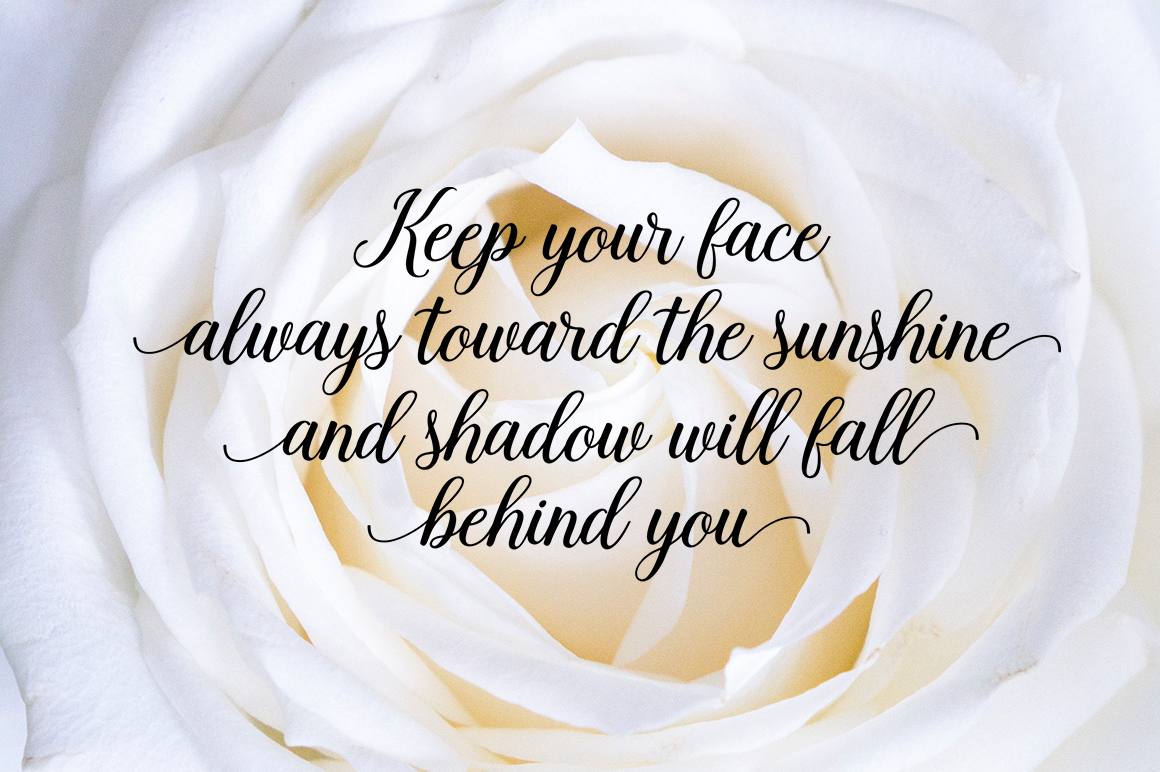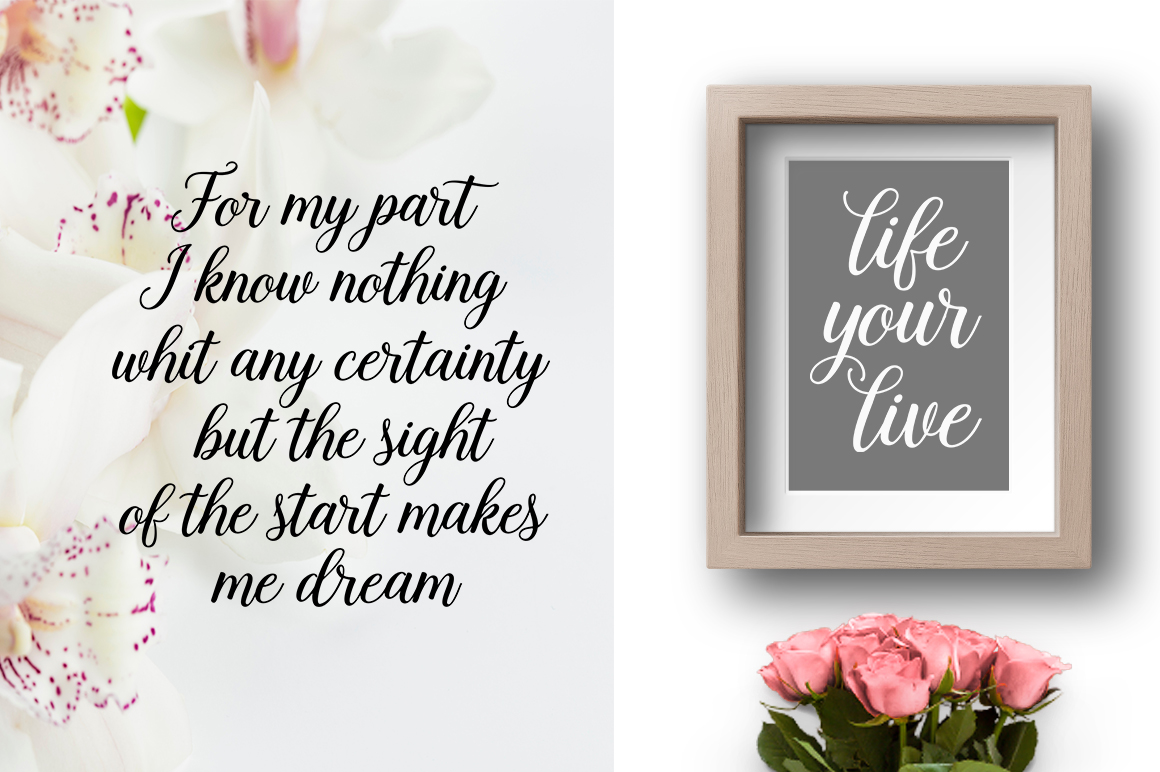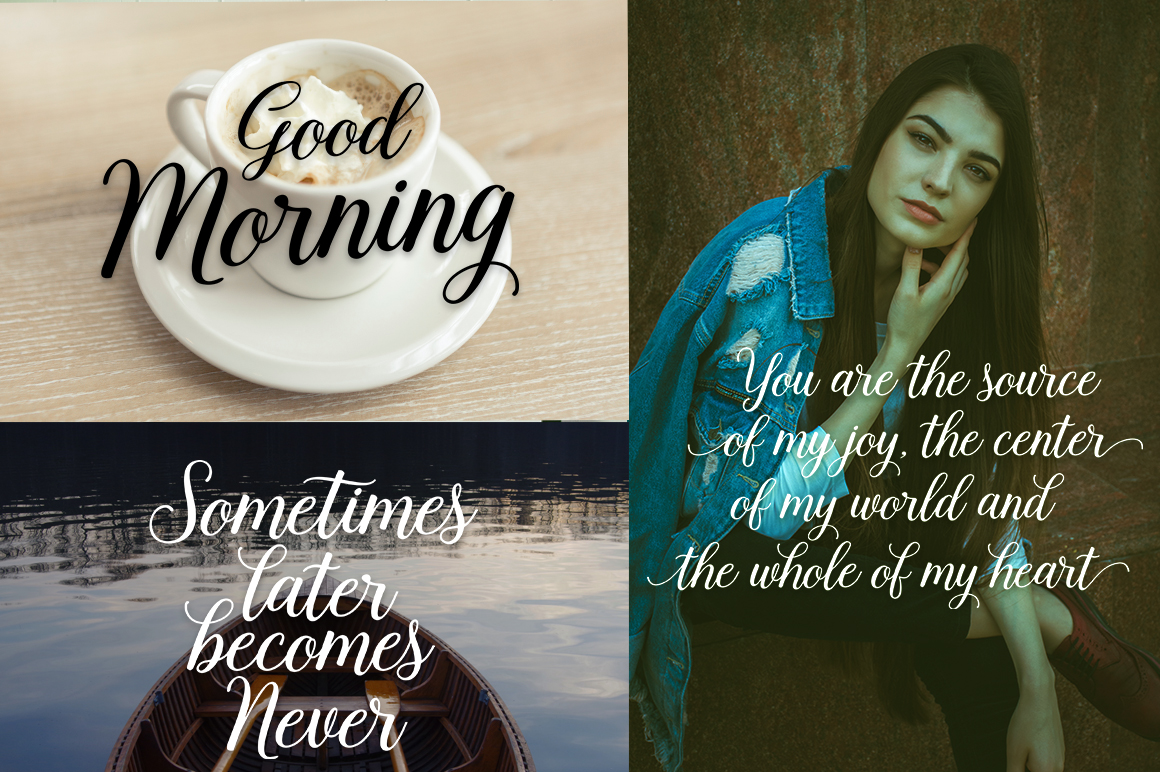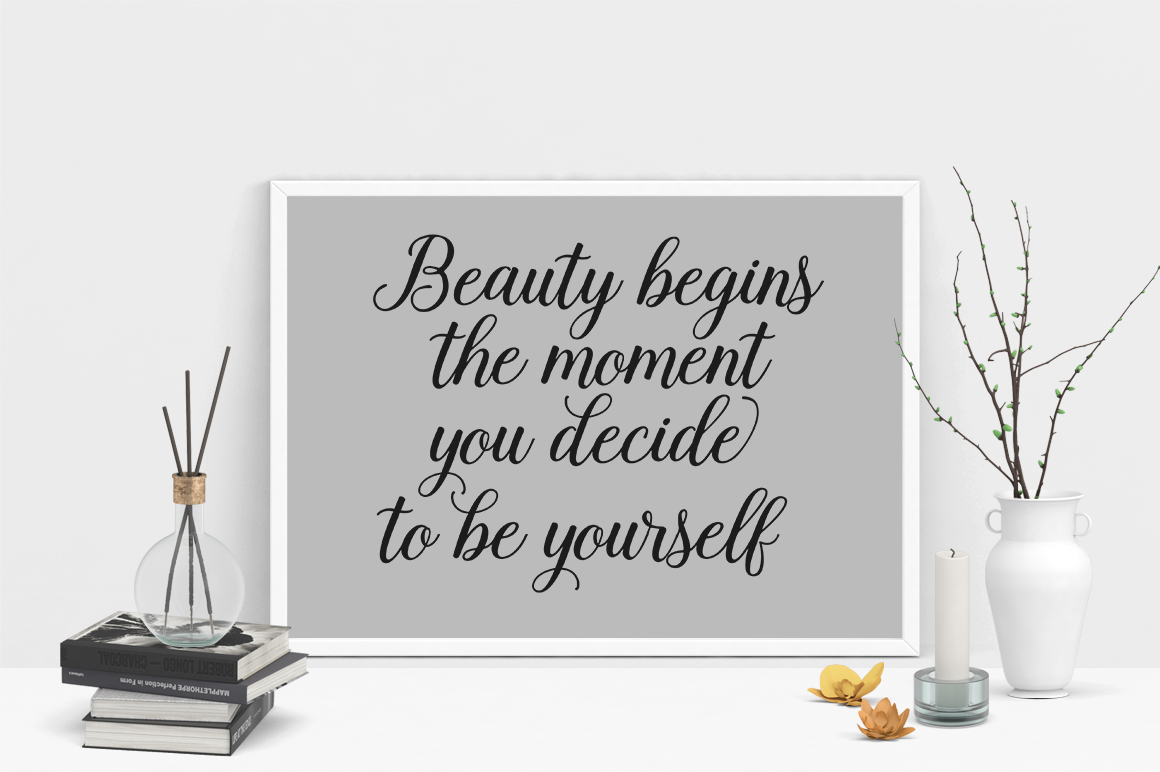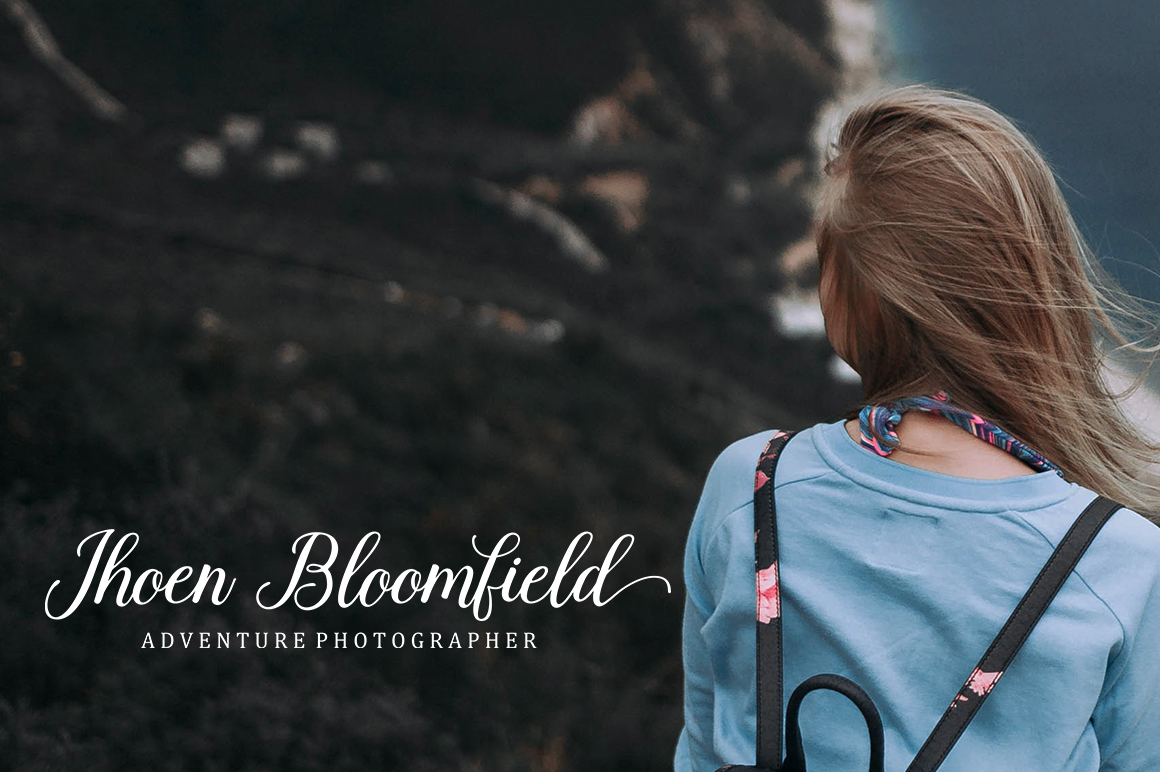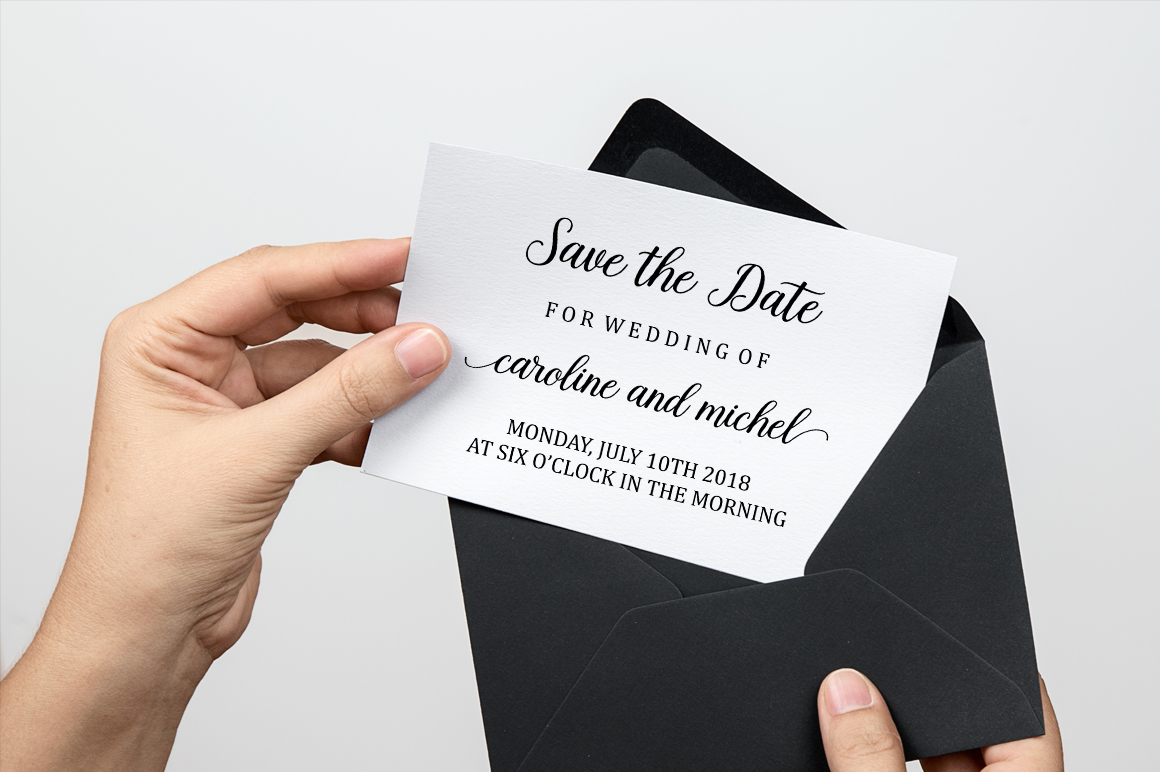
The Art of Beautiful Typography: Introducing Bethanya Font
There’s something magical about the moment when a font comes together and elevates a design from good to great. It’s the spark that sets creativity ablaze, and for designers, it’s a thrill like no other. Whether you’re crafting a logo, designing a wedding invitation, or building a brand, the right font can make all the difference.
Bethanya Font is a modern calligraphic font that’s sure to capture your imagination. With its fluid lines and stunning swashes, it’s perfect for both corporate branding and personal projects. Whether you’re a seasoned pro or just starting out, Bethanya Font offers a level of sophistication and elegance that’s hard to resist.
- Unique Characteristics: Bethanya Font features a unique blend of modern and traditional design elements, with a focus on readability and versatility
Bethanya Font Review
As a designer, I was excited to dive into the Bethanya Font, a beautiful script font that promises to add a touch of elegance to any project. ✨ One of the things I love about Bethanya is its versatility – it works well for both digital and print projects, making it a great addition to any designer’s toolkit. The font is also incredibly easy to use, with a seamless installation process and intuitive controls. ✨ Another standout feature is the font’s high level of customization options, allowing designers to tailor the look and feel to suit their specific needs.
- ✨ Versatility: suitable for both digital and print projects
- ✨ Customization options: high level of control over the font’s appearance
- ⚠️ Limited character set: some users may find the font’s character set lacking for certain languages or special characters
- ⚠️ Not ideal for large body text: while the font is beautiful for headings and titles, it may not be the best choice for large blocks of text
Overall, I’m impressed with the Bethanya Font, but I do have some reservations about its limitations. While it’s perfect for adding a touch of elegance to your projects, it may not be the best choice for every design need. With a little creative problem-solving, however, I’m confident that designers can make the most of this beautiful font.
To get the most out of the Bethanya font, use it in combination with other design elements, such as images and shapes. You can also experiment with different font sizes and styles to create a unique and eye-catching design.
The Bethanya font is ideal for use in creative projects, such as:
- Invitations and event flyers
- Posters and advertisements
- Wedding invitations and decorations